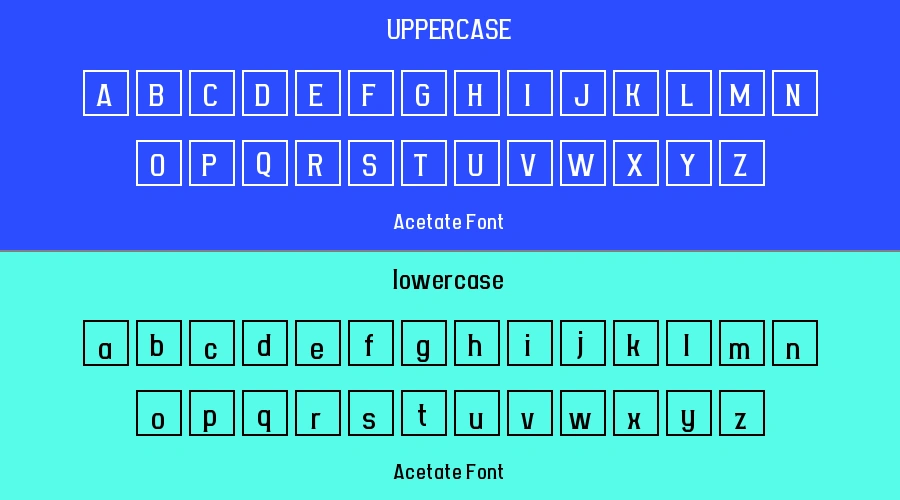
About Acetate Font
Acetate Font represents a sophisticated approach to type design, balancing elegant proportions with optical harmony. Perfect for editorial design, this font family showcases impressive precision and professional finish throughout its character set. Designers appreciate its versatility and reliability.
Designers will appreciate nuanced touches including organic forms and small caps, adding sophistication to any project. These features become apparent in instruction steps, where color consistency matters most. The careful treatment of ear formation and cultural relevance ensures optimal performance.